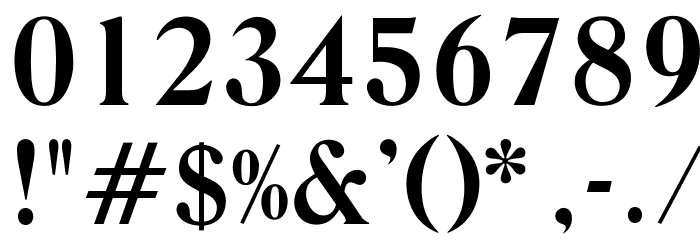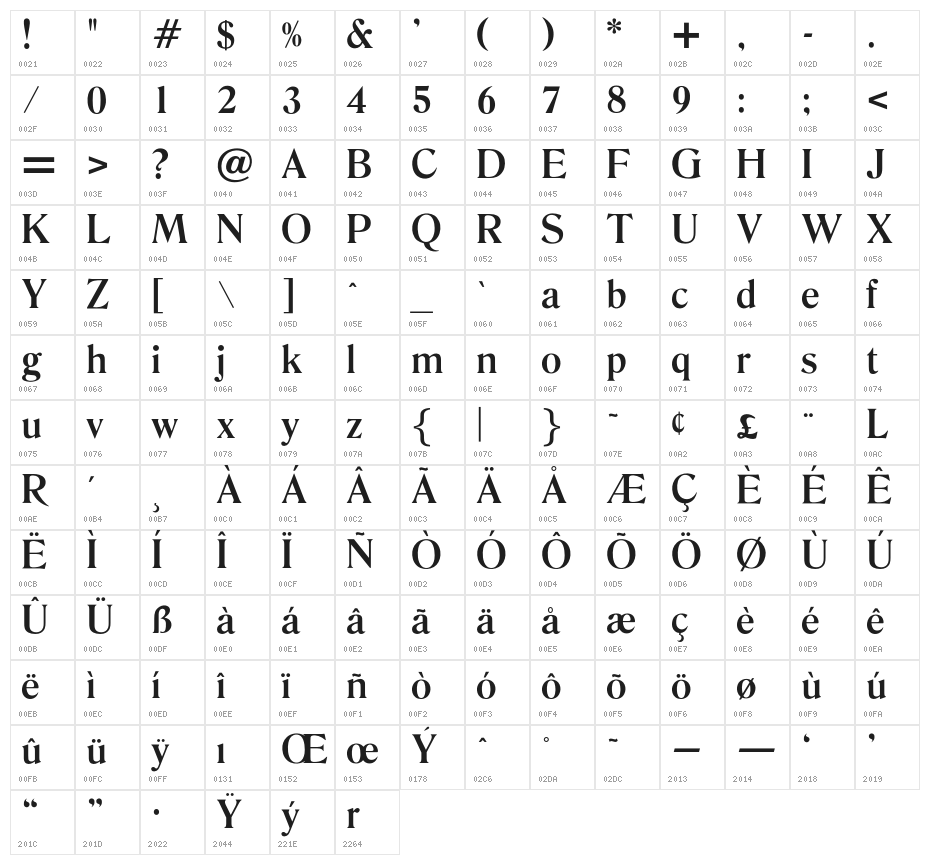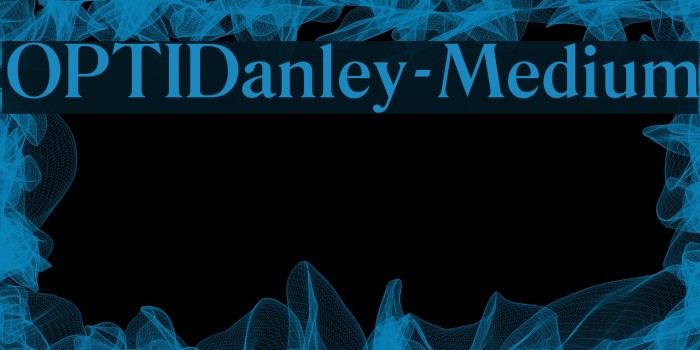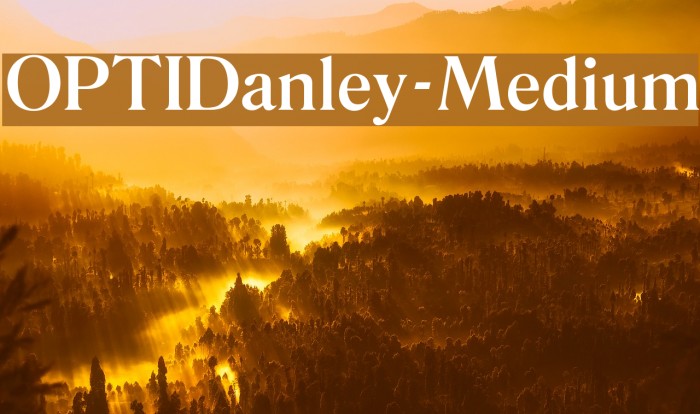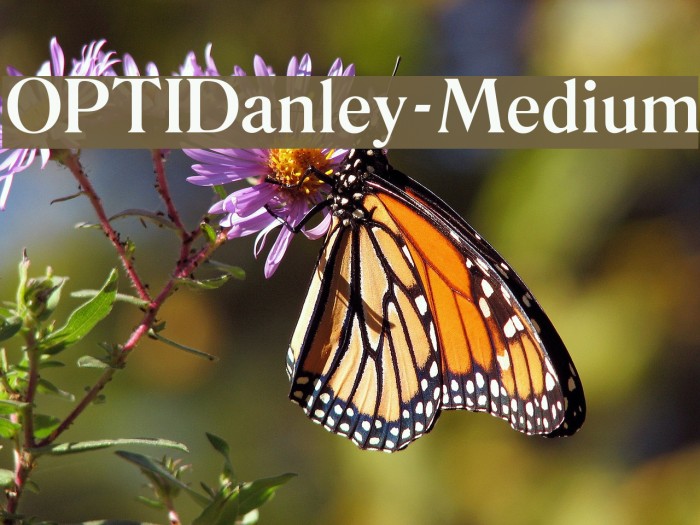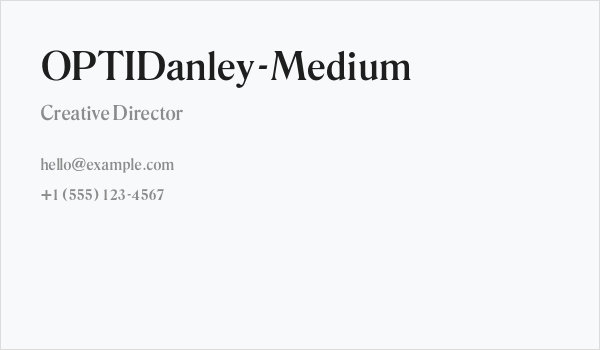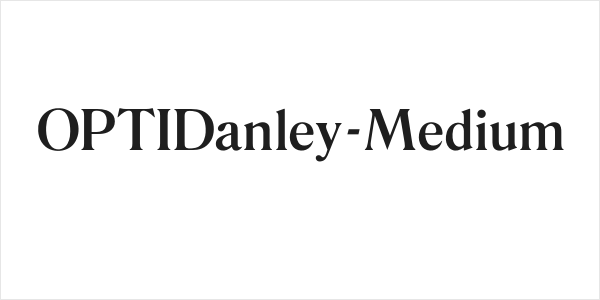
OPTIDanley-Medium Font
OPTIDanley-Medium Description
This font features a classic serif style with a strong presence and elegant curves. The uppercase letters are bold and commanding, while the lowercase letters maintain a refined and balanced appearance. The numerals are clear and distinct, providing excellent readability. Special characters are crafted with attention to detail, enhancing the font's versatility. The overall design is sophisticated, making it suitable for a variety of formal and professional applications.
| Proposed Projects | Ideal for editorial design, book covers, formal invitations, and branding projects that require a touch of elegance. |